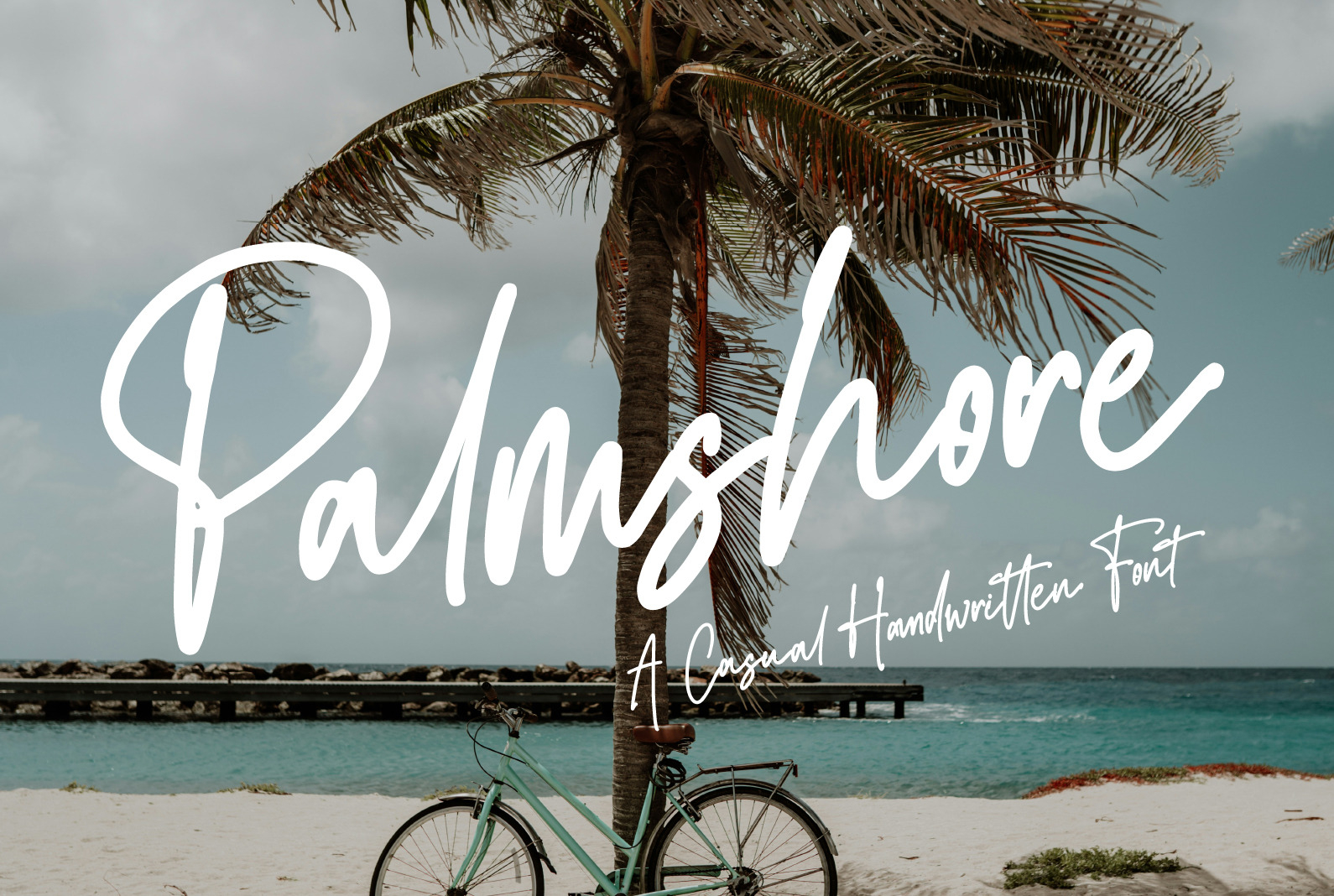
Palmshore
Palmshore is a font family published by Prestige Artsy Studio.
Introducing Palmshore a monoline casual handwritten font that seamlessly blends modern simplicity with effortless charm. Perfect for adding a touch of personality to your projects, this versatile typeface exudes casual elegance and captures the essence of handwritten authenticity.
Whether you’re crafting invitations, branding materials, or social media posts, our font effortlessly elevates your designs with its smooth lines and relaxed vibe.
Embrace the art of casual sophistication with Palmshore!